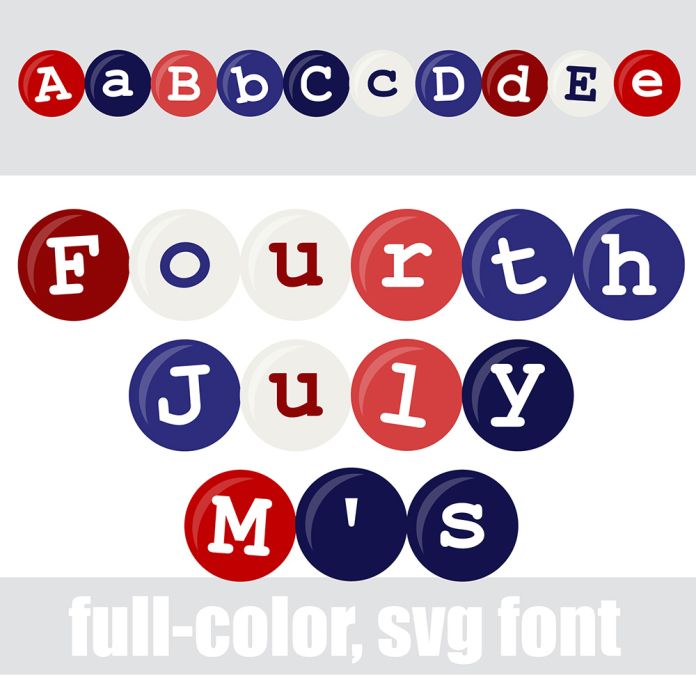
This full-color font looks like patriotic candied shelled chocolates. There is an alt case w/ additional colors you can access through your system or Silhouette's glyph map. This font works best for titles, displays, posters and more. Please note color fonts will show as black in non compatible programs. This font type is compatible with Silhouette Studio.